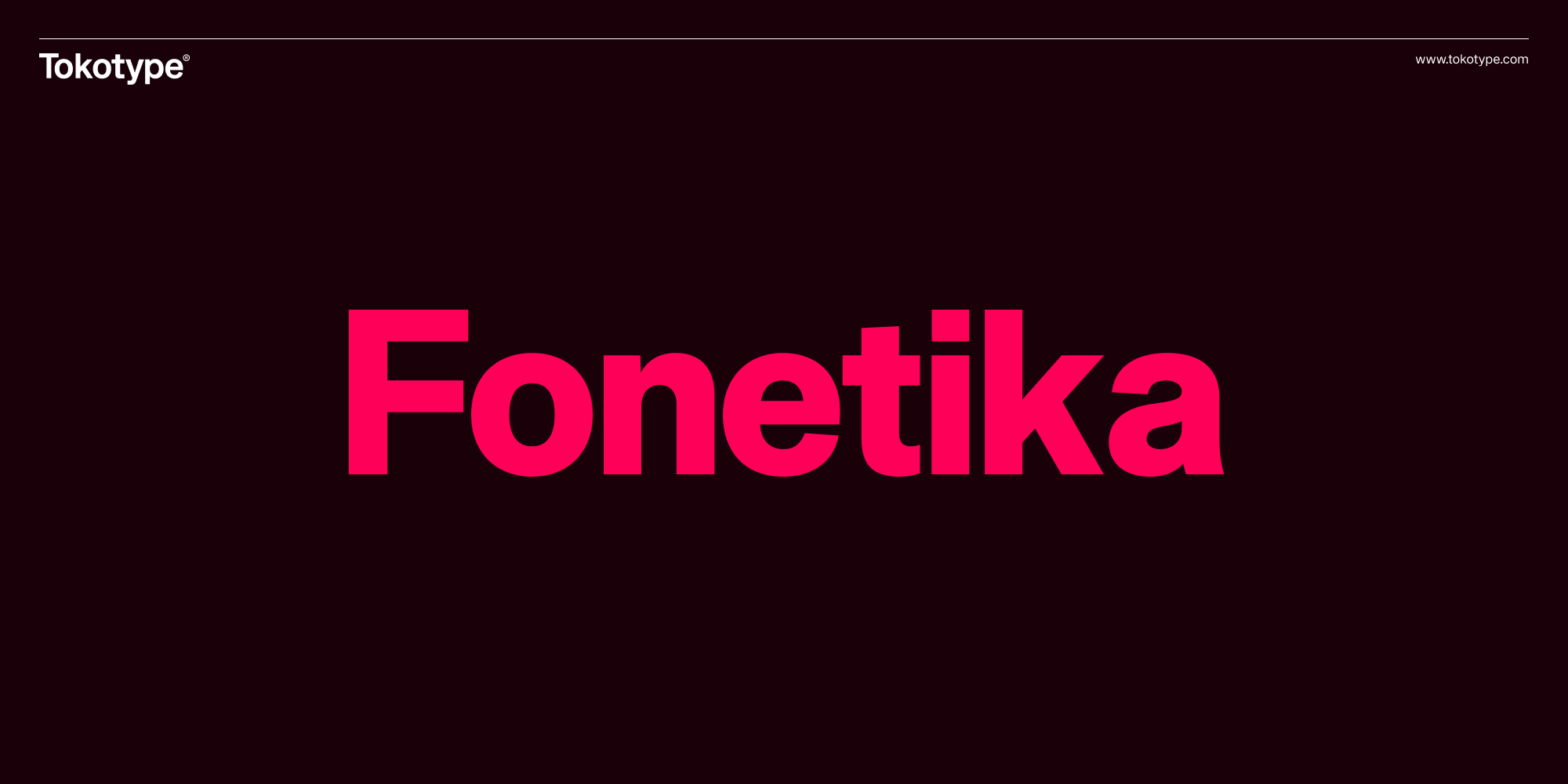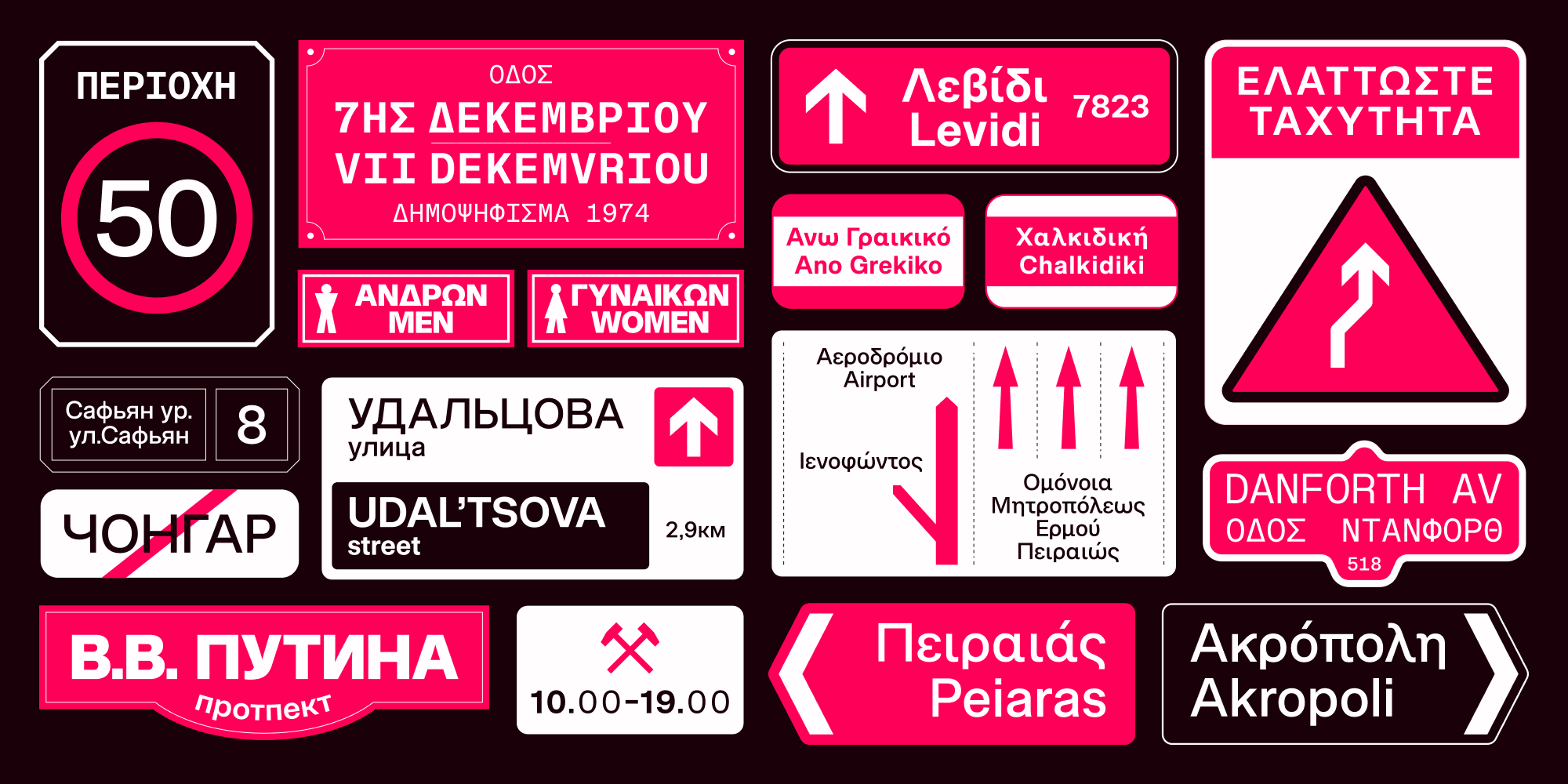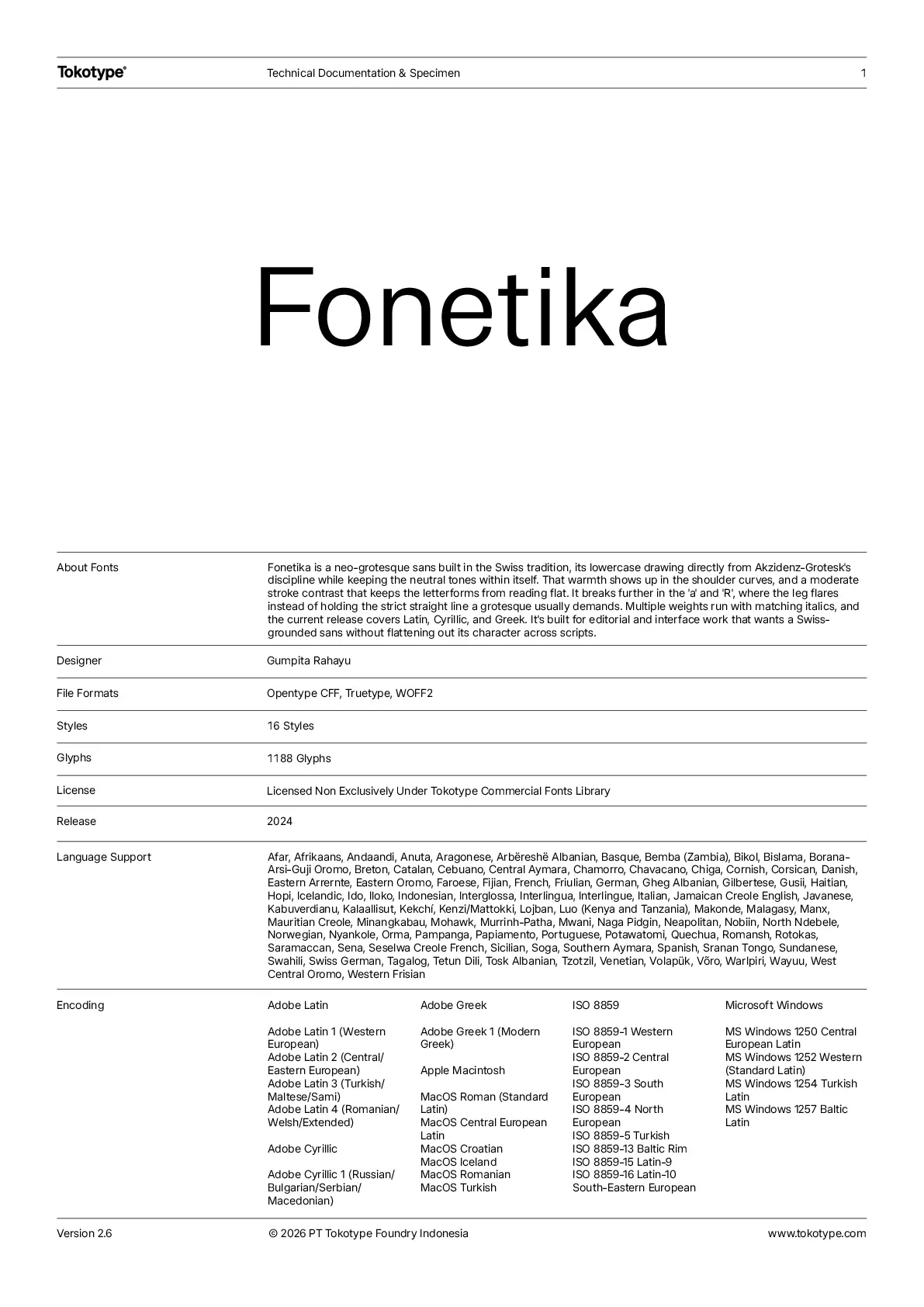
Fonetika Font Family & Specimen - Tokotype
Fonetika
Fonetika is a neo-grotesque sans built in the Swiss tradition, its lowercase drawing directly from Akzidenz-Grotesk's discipline while keeping the neutral tones within itself. That warmth shows up in the shoulder curves, and a moderate stroke contrast that keeps the letterforms from reading flat. It breaks further in the 'a' and 'R', where the leg flares instead of holding the strict straight line a grotesque usually demands. Multiple weights run with matching italics, and the current release covers Latin, Cyrillic, and Greek. It's built for editorial and interface work that wants a Swiss-grounded sans without flattening out its character across scripts.
Designers
Gumpita Rahayu